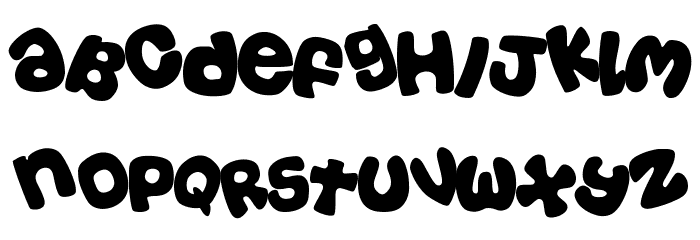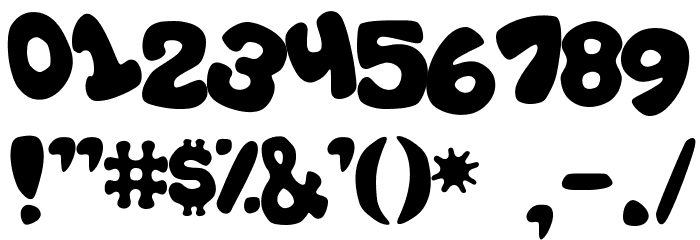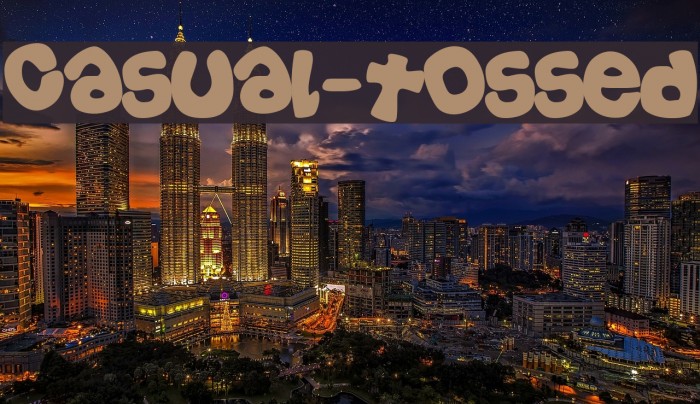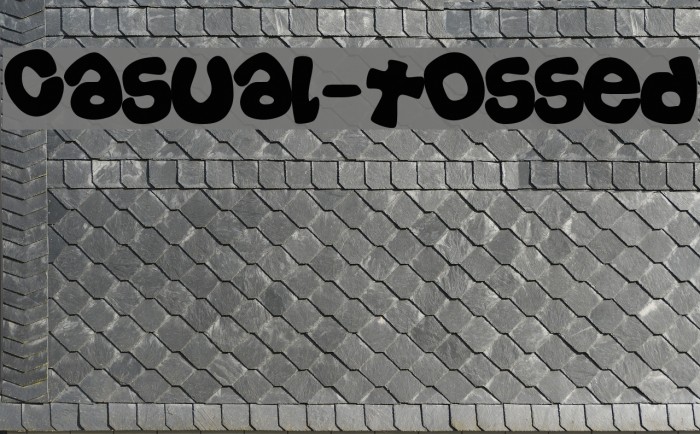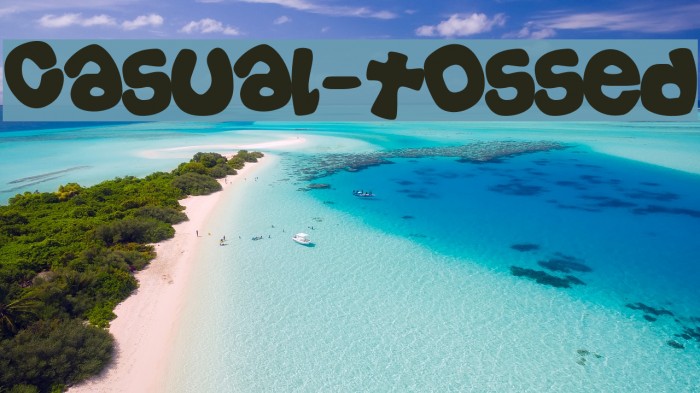
Casual-Tossed Font
This playful and bold font features a whimsical, hand-drawn style with rounded, irregular shapes that give it a lively and energetic appearance. The letters are thick and chunky, with a slightly uneven baseline that adds to its casual and fun character. The font's exaggerated curves and loops create a sense of movement and spontaneity, making it ideal for projects that require a touch of humor and creativity. Its unique style is both eye-catching and approachable, perfect for capturing attention in a friendly and informal way.
A playful, bold font with a whimsical, hand-drawn style and rounded, irregular shapes.
- Proposed Projects: Ideal for children's books, playful branding, party invitations, and casual social media graphics.
- Overall Style: Playful, Casual